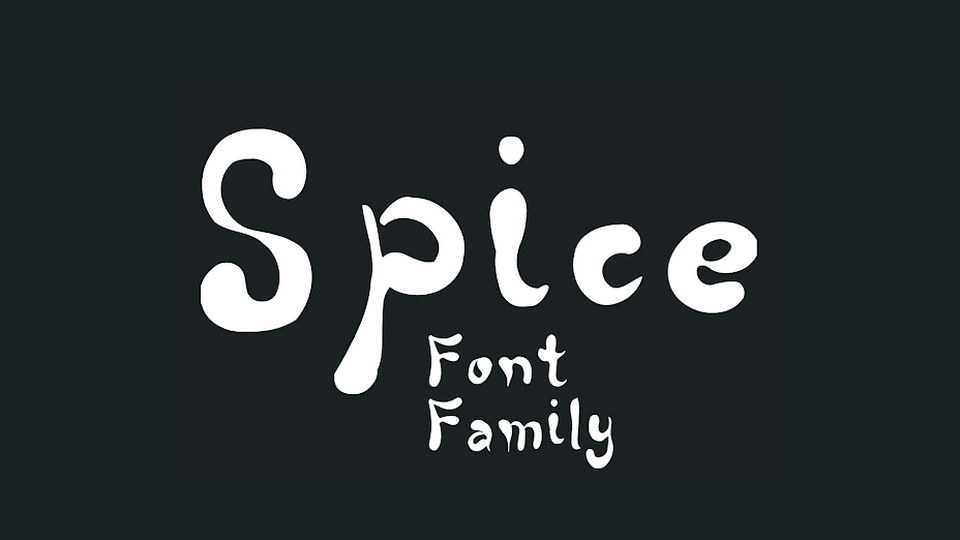
Download PVF_Spice font, a simple and natural handwritten typeface with an Asian look. PVF Spice is suitable for crafts, notes, cards and projects that need a personal touch.
Designer: Petros Vasiadis